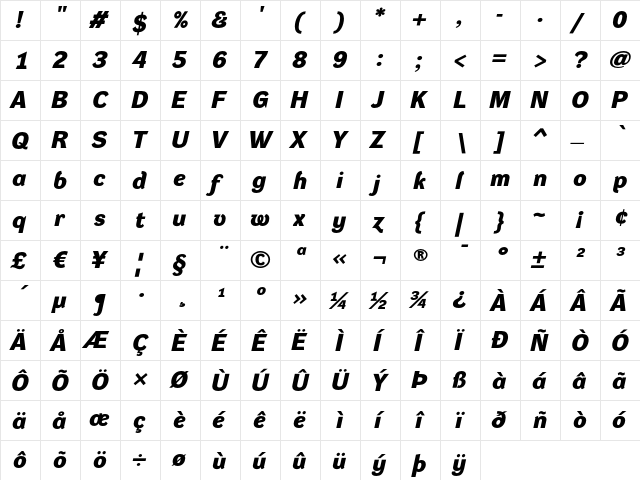
DynaGrotesk DE Bold Italic Font Preview
DynaGrotesk DE Bold Italic
DynaGrotesk DE Bold Italic Font Details
| Foundry | Frantisek Storm, stormtype.com |
Design Context for DynaGrotesk DE Typeface
DynaGrotesk DE takes a clean, functional approach — its unadorned letterforms prioritise legibility and work reliably across screen and print environments. The slanted form adds forward momentum and visual energy. The heavy weight commands attention and anchors typographic hierarchies.
Well-suited to navigation labels, product packaging, and anywhere legibility at scale is essential.
Font Pairing: Use DynaGrotesk DE for headlines alongside a lighter-weight sans or serif for body copy to establish clear visual hierarchy.
Pro Tip: Use DynaGrotesk DE for UI labels, navigation, and short-form body copy where clean legibility is the priority.